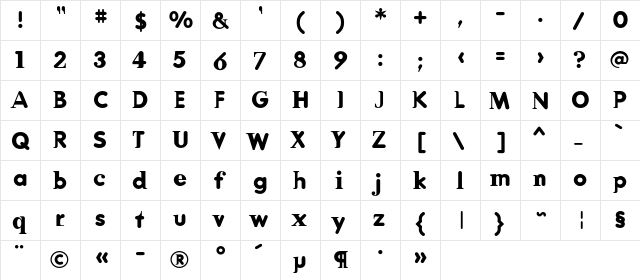
DeadHistoryC Bold
Design Context for DeadHistoryC Typeface
DeadHistoryC is a composed and adaptable typeface that performs quietly and consistently across a wide range of design contexts. Its bold stroke weight gives it real presence on the page.